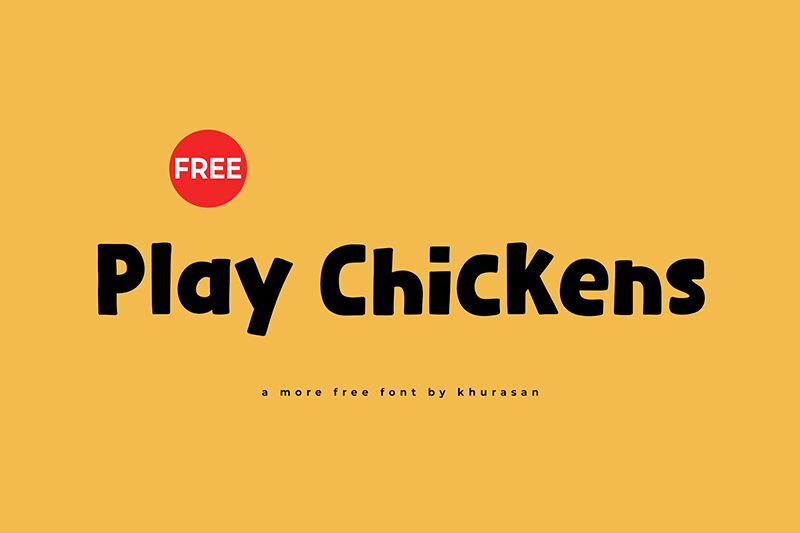
Play Chickens
Play Chickens font by Khurasan is a bold display typeface with a cartoon style that feels both contemporary and casual. Rounded edges and friendly forms give this approachable font its welcoming feel, which makes it suitable for a younger audience. The designer mostly kept his letters in capital form and applied an uneven baseline to enhance the unusual playful appearance of the family.
This free handwritten font is versatile enough for use on posters, product packaging, B2B flyers, children’s books, comics, videos captions/credits, banners, logos and trademarks. All titles from blog posts to websites or newsletters can be written using Play Chickens as well as social media stories/ads visual content (Facebook covers/artworks etc.).